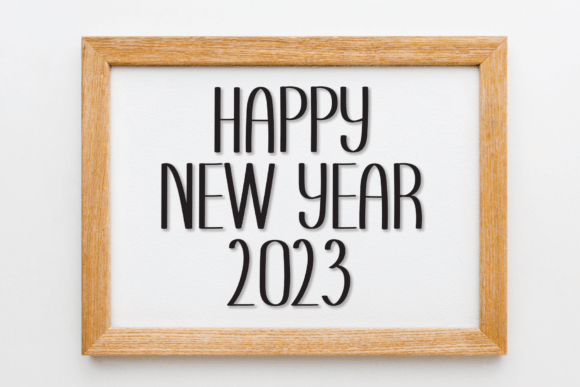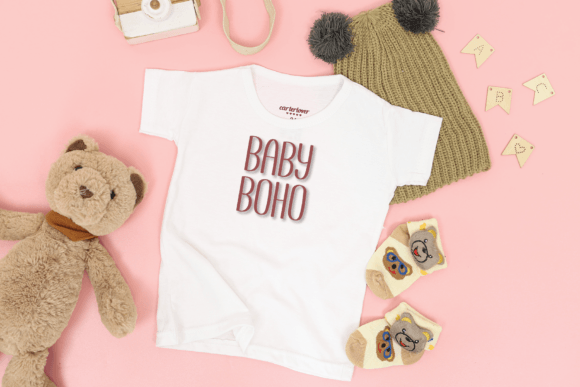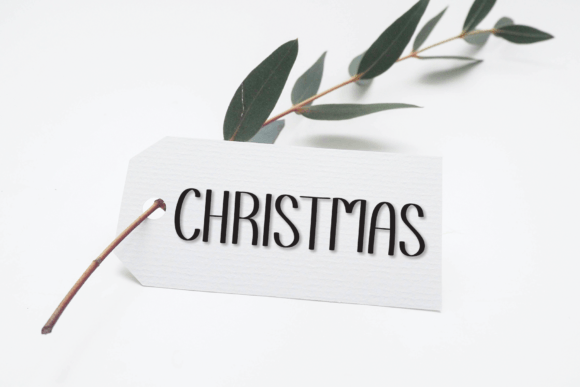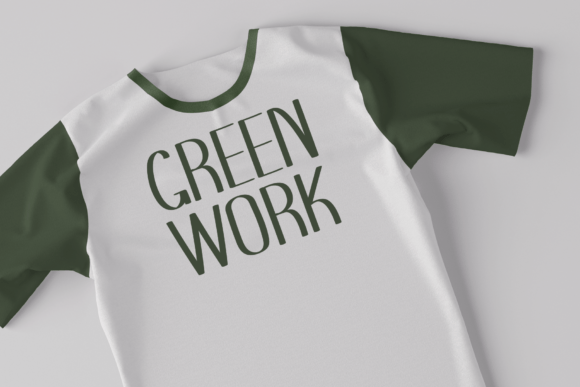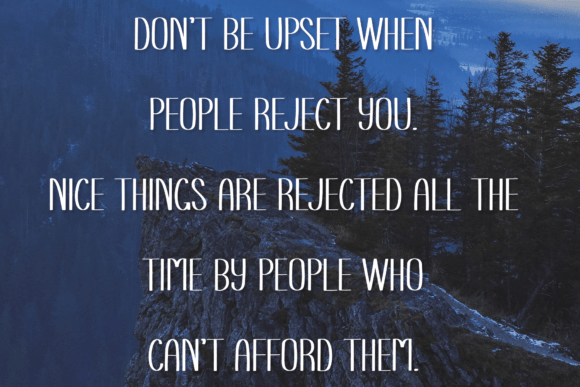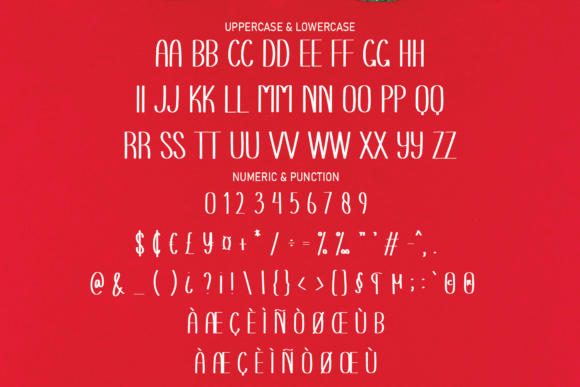
Introduction to Christmas Lolipop Font
Christmas Lolipip is a simple sans-serif font.
Its latest style letters are perfect for wall displays, wedding invitations, social media post logos, advertisements, product packaging, product designs, labels, photography, watermarks, invitations, stationery, and any project that requires modern typography .
Key Features of Christmas Lolipop Font